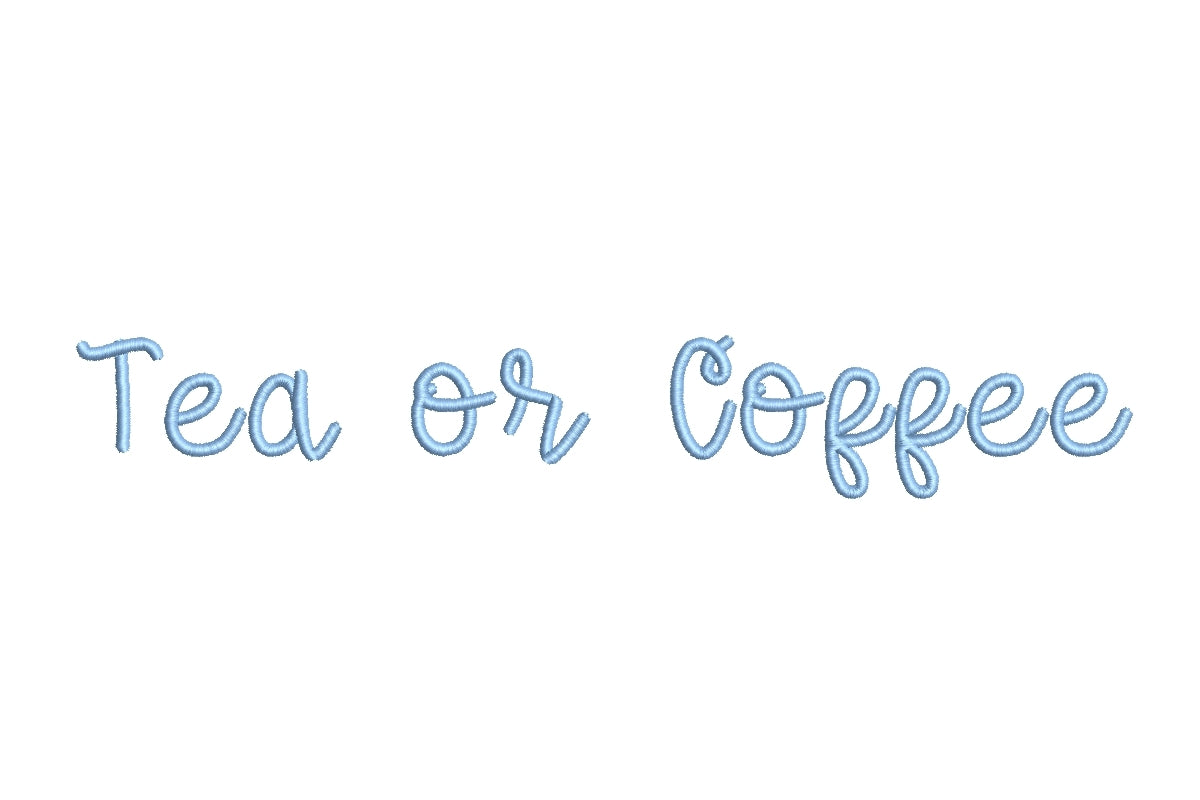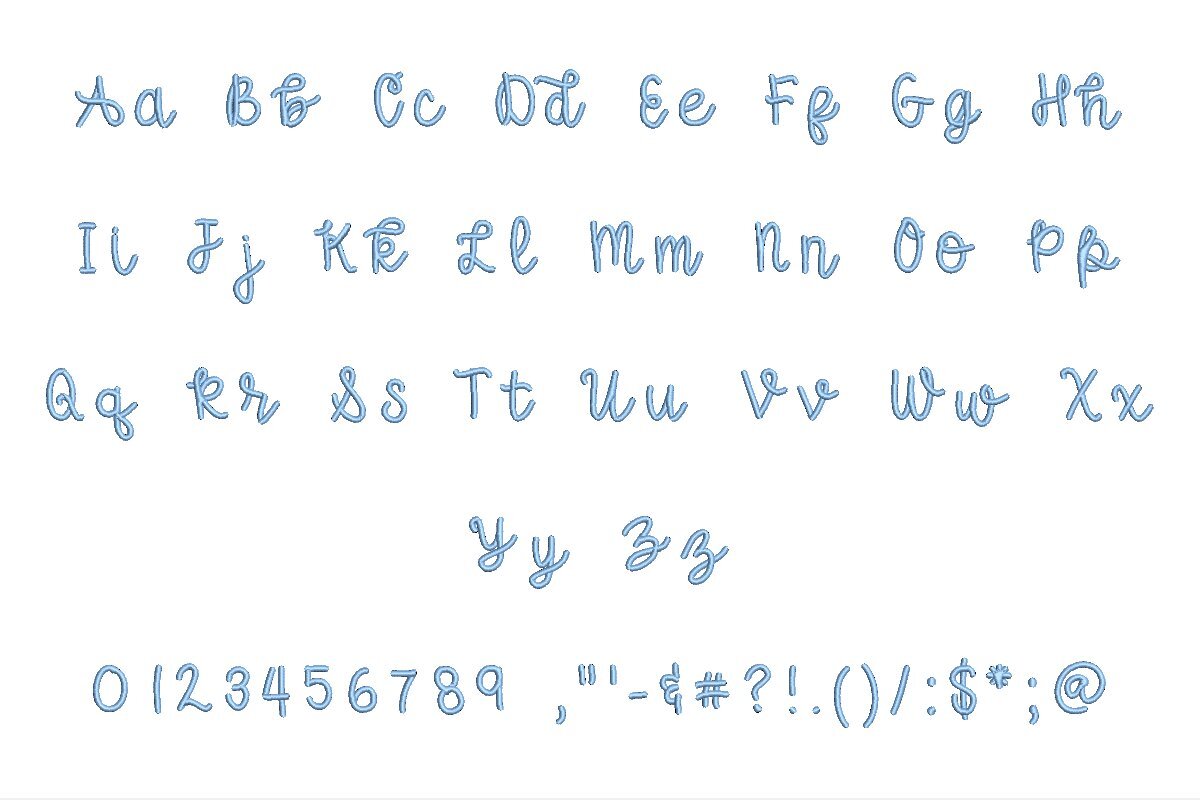
Tea Or Coffee Medium ESA Font
Elevate your embroidery projects with the Tea Or Coffee Medium ESA font, perfectly compatible with Wilcom Studio e4.5.6 and Hatch 3 versions and beyond. This font embodies precision and versatility, ensuring flawless stitching quality. Its unique design, inspired by the warmth of tea or coffee, infuses character into monograms, logos, and text. The ESA format guarantees accurate digitization, seamlessly integrating with Wilcom Studio and Hatch. The Tea Or Coffee Medium ESA font streamlines your design process, delivering unmatched clarity and style. Elevate your embroidery to professional standards with this warm and inviting choice, ideal for those seeking a touch of coziness in their designs.